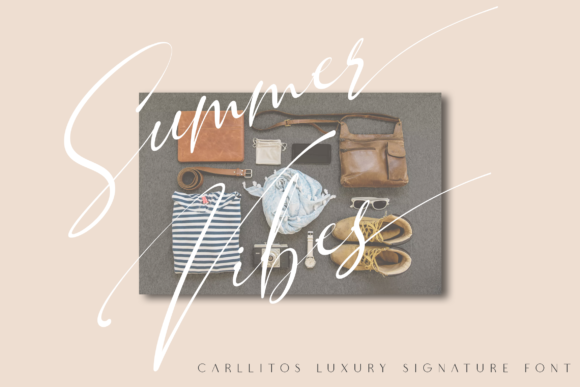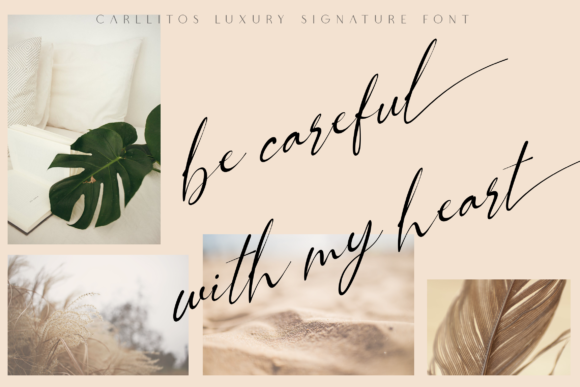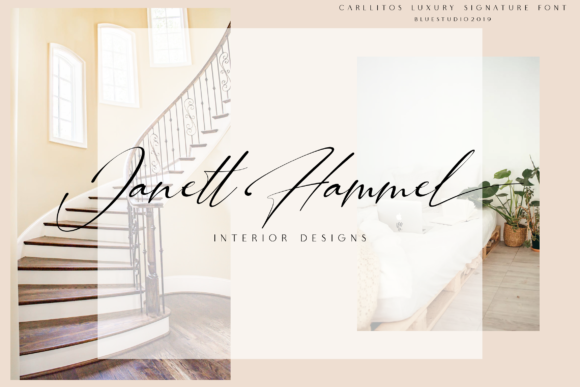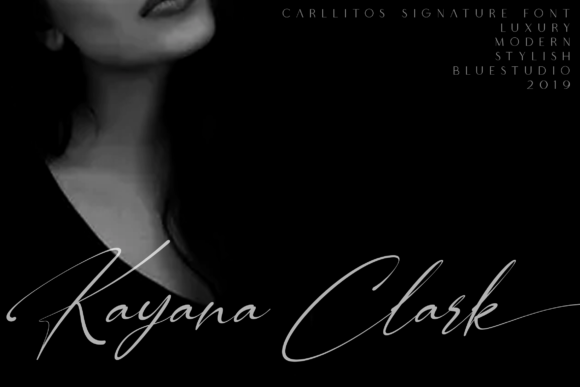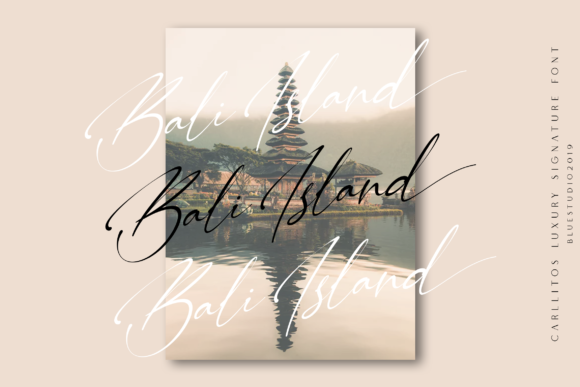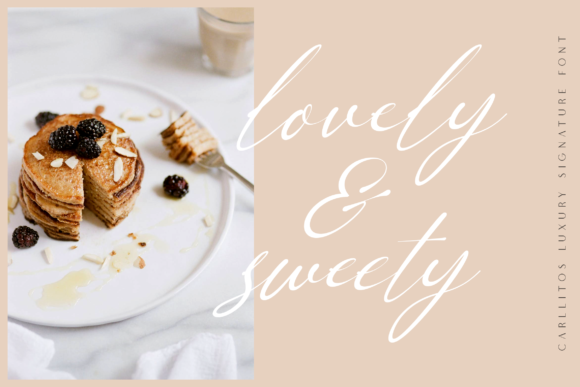
Introducing Carllitos Font: A Stunning Handwritten Font with a Light Feel
Are you tired of using the same old fonts in your designs? Look no further than Carllitos Font, a beautiful handwritten font that is sure to add a touch of elegance and sophistication to any project. With its light feel and contemporary vibe, Carllitos is the perfect choice for designers and crafters looking to add a unique and authentic touch to their work.
What is Carllitos Font?
Carllitos Font is a stunning handwritten font that is designed to give your designs a personal and human touch. Its light feel and effortless flow make it perfect for use in a variety of projects, from wedding invitations and greeting cards to branding and advertising materials. With its unique and authentic vibe, Carllitos is sure to set your designs apart from the crowd.
Key Features of Carllitos Font
- Handwritten with love: Carllitos Font is a carefully crafted handwritten font that is designed to give your designs a personal and human touch.
- Light feel: With its light feel and effortless flow, Carllitos Font is perfect for use in a variety of projects, from body text to headings and titles.
- Contemporary and authentic vibe: Carllitos Font has a unique and authentic vibe that is sure to add a touch of elegance and sophistication to any project.
- High-quality design: Carllitos Font is designed with high-quality craftsmanship in mind, ensuring that it looks great in any size or context.
Uses for Carllitos Font
Carllitos Font is a versatile font that can be used in a variety of projects, including:
- Wedding invitations and stationery: Add a touch of elegance and sophistication to your wedding invitations and stationery with Carllitos Font.
- Greeting cards and gift tags: Use Carllitos Font to add a personal and human touch to your greeting cards and gift tags.
- Branding and advertising materials: Carllitos Font is perfect for use in branding and advertising materials, such as logos, brochures, and flyers.
- Digital products: Use Carllitos Font to add a touch of elegance and sophistication to your digital products, such as ebooks, courses, and software.
Why Choose Carllitos Font?
There are many reasons why Carllitos Font is a great choice for designers and crafters. Here are just a few:
- Unique and authentic vibe: Carllitos Font has a unique and authentic vibe that is sure to set your designs apart from the crowd.
- High-quality design: Carllitos Font is designed with high-quality craftsmanship in mind, ensuring that it looks great in any size or context.
- Easy to read: Despite its light feel, Carllitos Font is easy to read and can be used in a variety of contexts, from body text to headings and titles.
- Versatile: Carllitos Font can be used in a variety of projects, from wedding invitations and greeting cards to branding and advertising materials.
Tips for Using Carllitos Font
Here are a few tips for using Carllitos Font in your designs:
- Use it sparingly: Carllitos Font is a beautiful font, but it can be overwhelming if used too much. Use it sparingly to add a touch of elegance and sophistication to your designs.
- Pair it with other fonts: Carllitos Font pairs well with other fonts, such as sans-serif fonts and serif fonts. Experiment with different pairings to find the one that works best for your design.
- Adjust the size and color: Carllitos Font looks great in a variety of sizes and colors. Experiment with different sizes and colors to find the one that works best for your design.
Carllitos Font is a stunning handwritten font with a light feel and a contemporary and authentic vibe. With its high-quality design and versatility, it is perfect for use in a variety of projects, from wedding invitations and greeting cards to branding and advertising materials. Whether you’re a designer or crafter, Carllitos Font is a great choice for adding a touch of elegance and sophistication to your work.